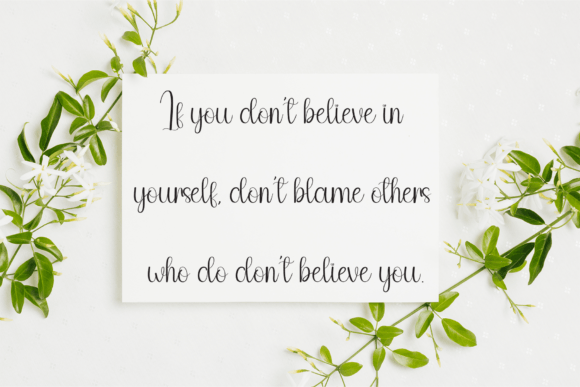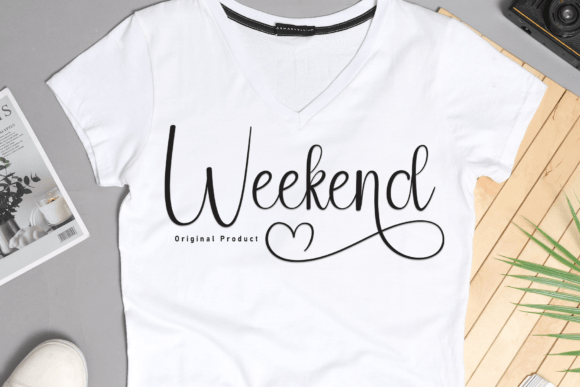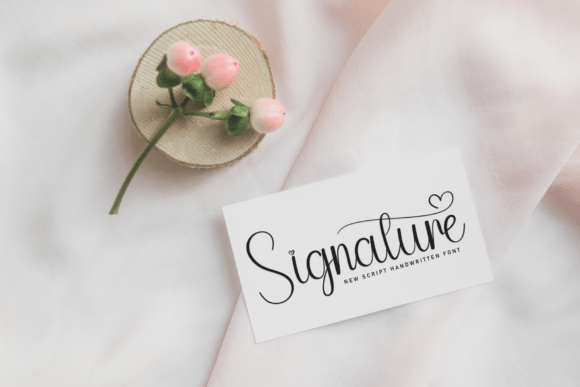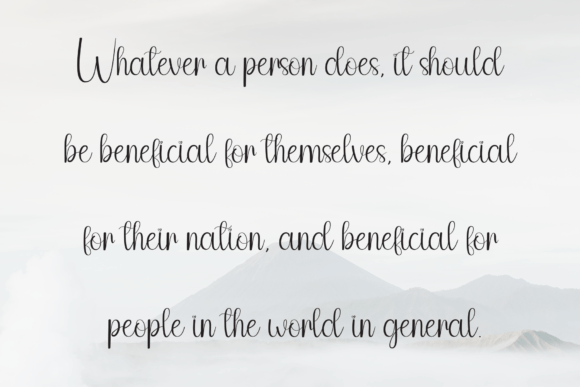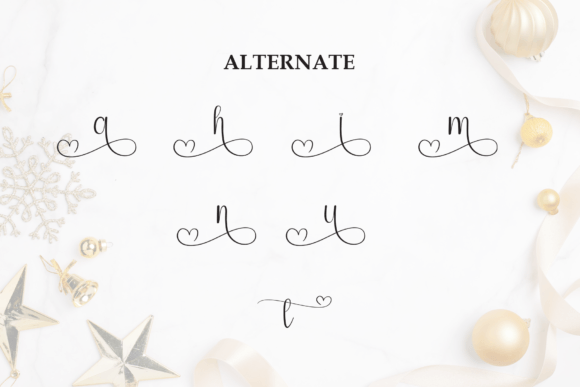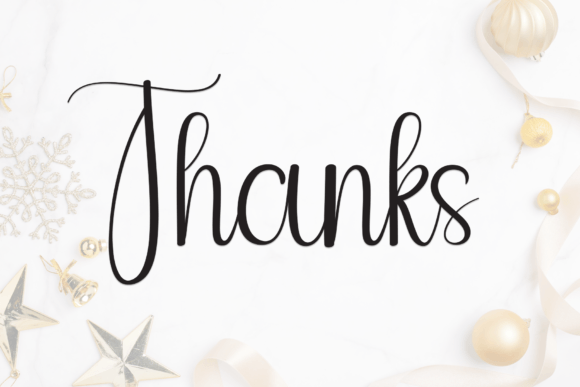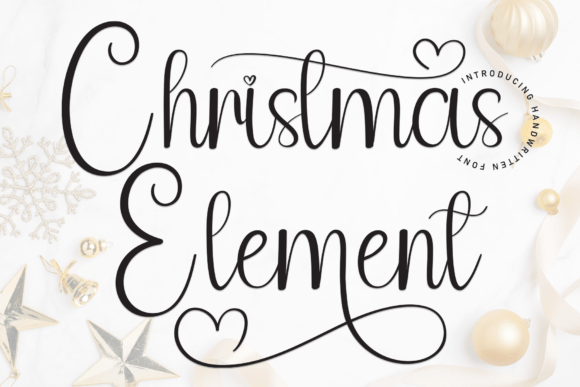
Introducing Christmas Element Font: The Sweet and Friendly Handwritten Display Font
Are you looking for a font that can add a touch of fun and whimsy to your designs? Look no further than Christmas Element Font! This sweet and friendly handwritten display font is perfect for creating eye-catching wedding invitations, cards, and other designs that need a playful twist.
What Makes Christmas Element Font So Special?
Christmas Element Font is a unique and charming font that is sure to capture the hearts of designers and crafters alike. Its cute and fun design makes it ideal for a wide range of projects, from wedding invitations and cards to social media graphics and blog posts.
One of the standout features of Christmas Element Font is its handwritten style, which gives it a warm and personal feel. The font is carefully crafted to resemble handwriting, with subtle variations in line width and letterforms that create a sense of movement and energy.
Wedding invitations and cards are a great way to showcase the Christmas Element Font. The font’s playful and romantic style makes it perfect for couples who want to add a touch of whimsy to their wedding stationery. Whether you’re designing a formal or informal wedding invitation, Christmas Element Font is sure to impress.
In addition to wedding invitations, Christmas Element Font is also great for creating other types of cards, such as birthday cards, holiday cards, and thank-you cards. The font’s versatility and charm make it easy to use for a wide range of occasions.
Why Designers and Crafters Love Christmas Element Font
Designers and crafters love Christmas Element Font for many reasons. Here are just a few:
- Easy to read: Despite its playful style, Christmas Element Font is easy to read, even at small sizes. This makes it perfect for creating designs that need to be both visually appealing and legible.
- Versatile: Christmas Element Font can be used for a wide range of projects, from digital designs to print materials. Its versatility makes it a great addition to any designer’s toolkit.
- Customizable: Christmas Element Font can be easily customized to fit your design needs. You can adjust the font size, color, and style to create a unique look that suits your project.
How to Use Christmas Element Font in Your Designs
Using Christmas Element Font in your designs is easy! Here are a few tips to get you started:
- Pair it with other fonts: Christmas Element Font looks great when paired with other fonts. Try combining it with a serif font for a classic look or a sans-serif font for a modern twist.
- Use it for headings: Christmas Element Font is perfect for creating eye-catching headings and titles. Use it to add a touch of whimsy to your designs and draw attention to important information.
- Add embellishments: Christmas Element Font looks great with embellishments, such as glitter, flowers, or other graphics. Add some extra flair to your designs to make them truly special.
Christmas Element Font is a sweet and friendly handwritten display font that is perfect for adding a touch of fun and whimsy to your designs. Its cute and playful style makes it ideal for wedding invitations, cards, and other designs that need a romantic twist. With its ease of use, versatility, and customizability, Christmas Element Font is a great addition to any designer’s toolkit.